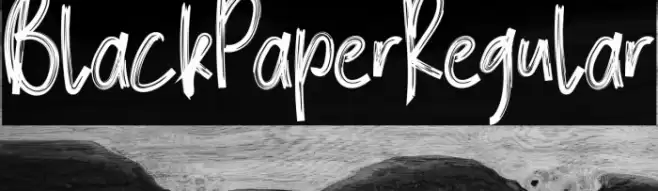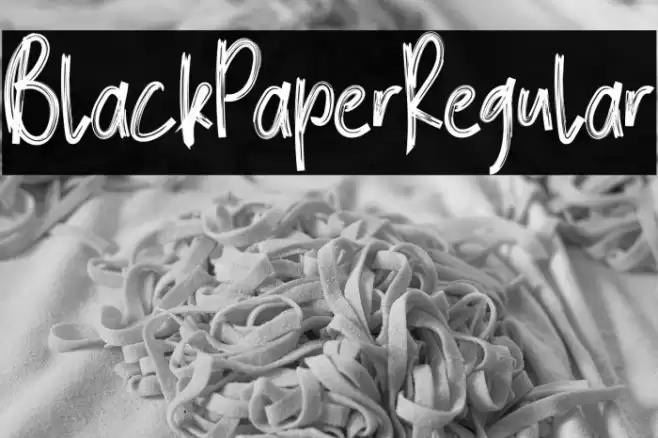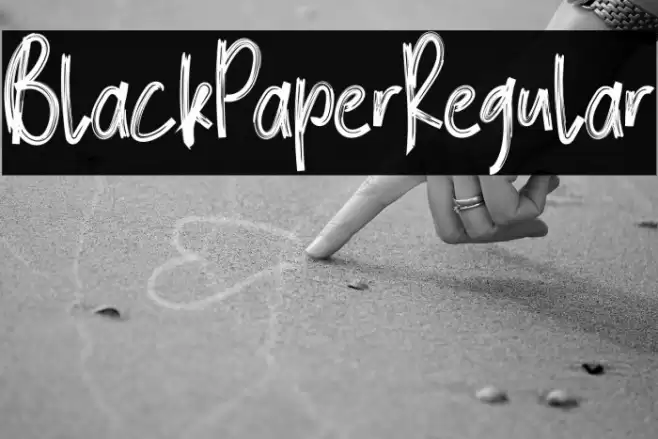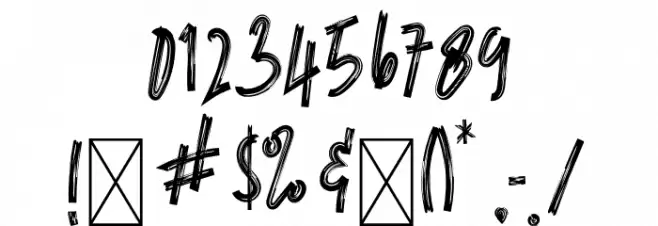
BlackPaperRegular Font
BlackPaperRegular Description
This font features a dynamic and expressive handwritten style, characterized by its bold and fluid strokes. The letters are slightly slanted, giving a sense of movement and energy. The uppercase and lowercase letters maintain a consistent style, with playful loops and curves that add a whimsical touch. The numbers and special characters follow the same lively design, making the font versatile for various creative projects. Its unique appearance makes it stand out, perfect for capturing attention and conveying a casual, artistic vibe.
A bold, expressive handwritten font with dynamic strokes and playful curves from Regular fonts.
- Proposed Projects: Ideal for creative projects such as posters, invitations, branding, and social media graphics where a personal and artistic touch is desired.